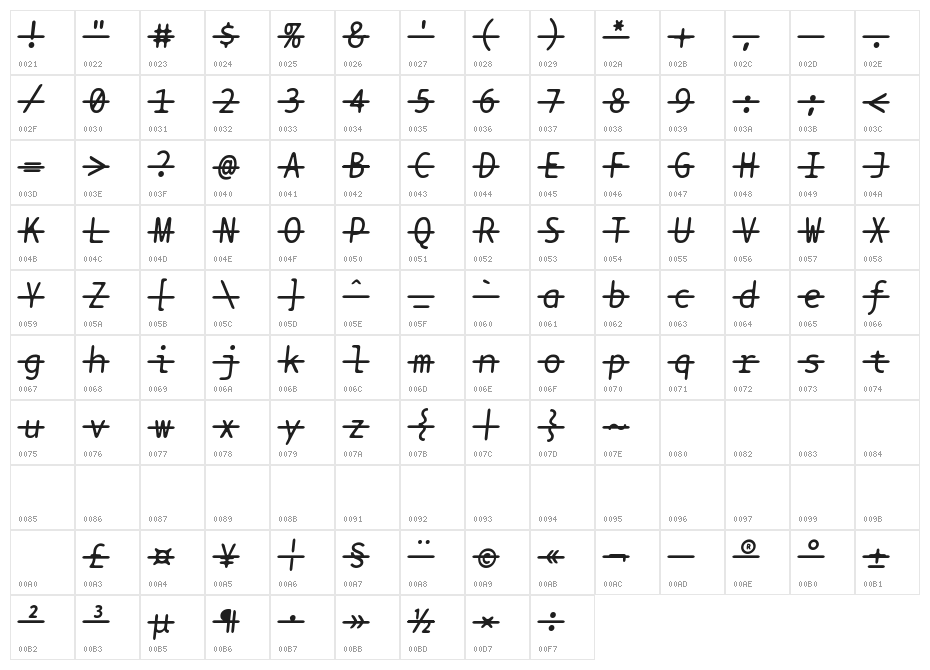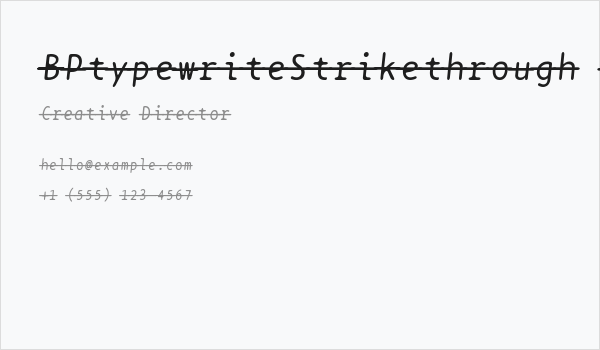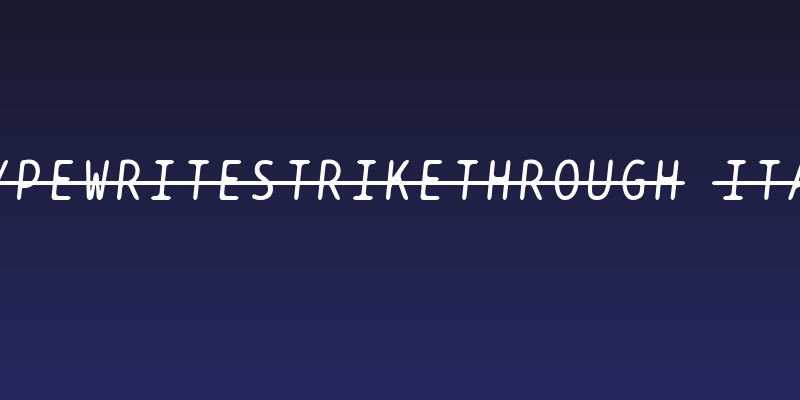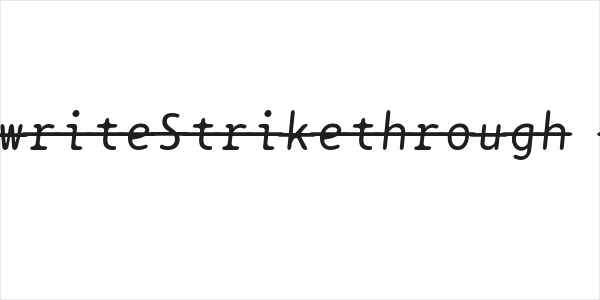
BPtypewriteStrikethrough Italic Font
This font features a unique typewriter style with a distinct strikethrough effect applied to each character. The letters are slightly italicized, giving them a dynamic and informal appearance. The uppercase and lowercase letters maintain a consistent style, with rounded edges and a monospaced alignment reminiscent of classic typewriter fonts. The numbers and special characters follow the same design, ensuring uniformity across all glyphs. The strikethrough adds a modern twist, making it suitable for creative and unconventional projects.
| Use Case | Logos, Creative projects, Artistic designs |
| Proposed Projects | Ideal for creative writing projects, artistic designs, retro-themed posters, and unique branding materials. |